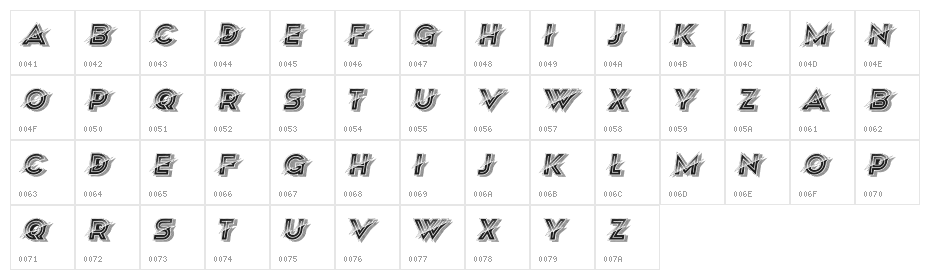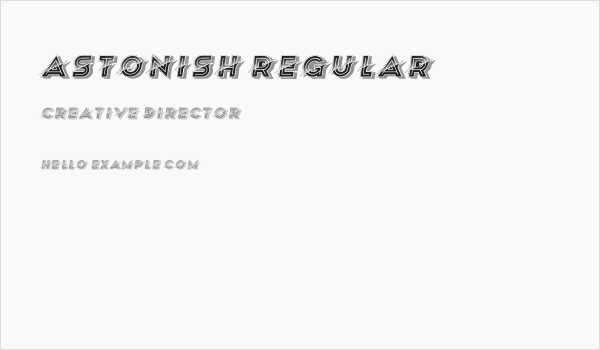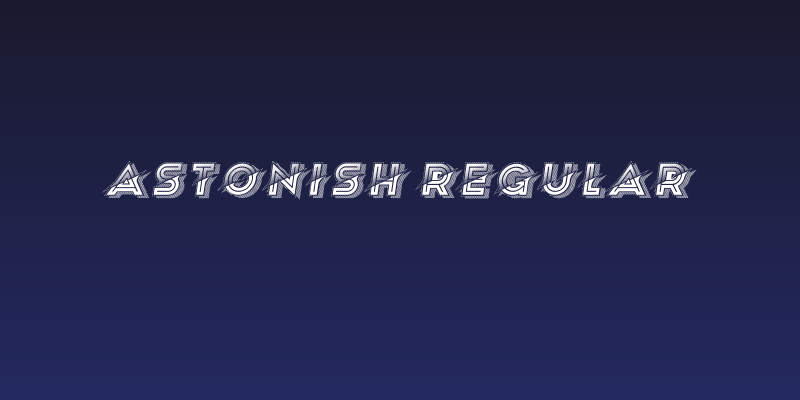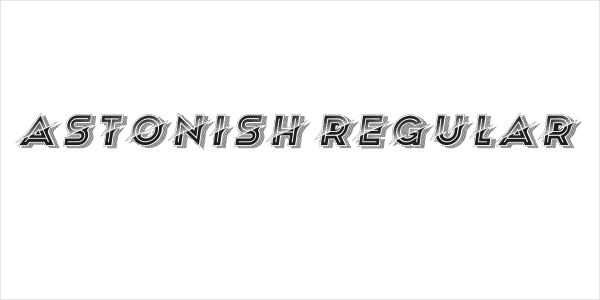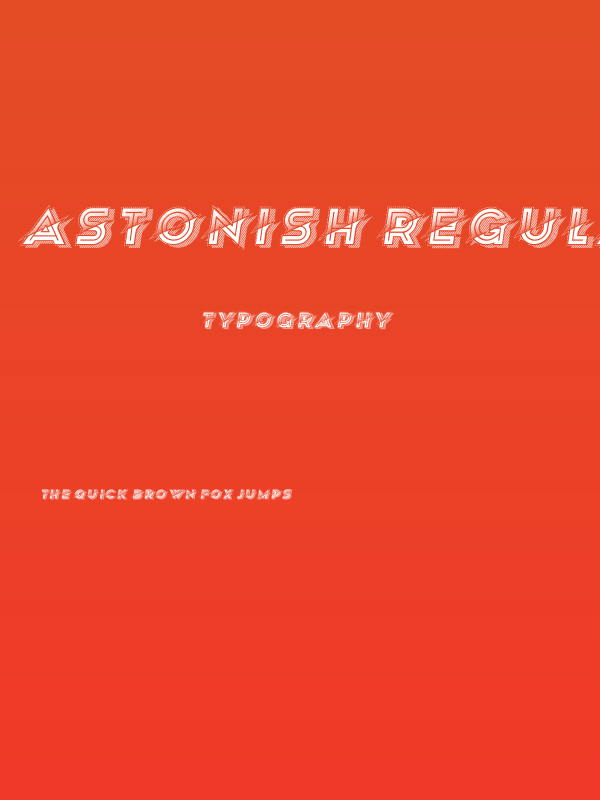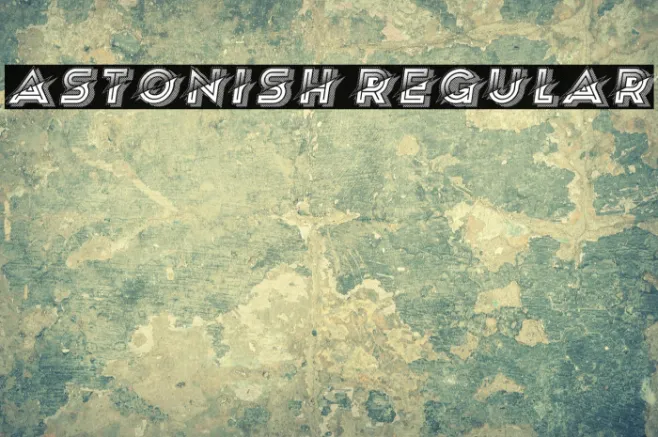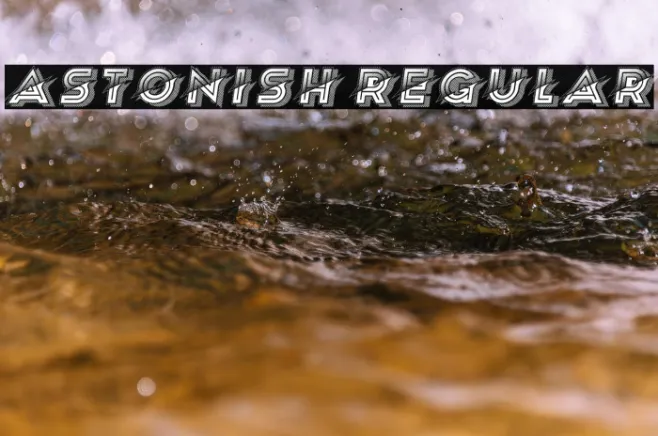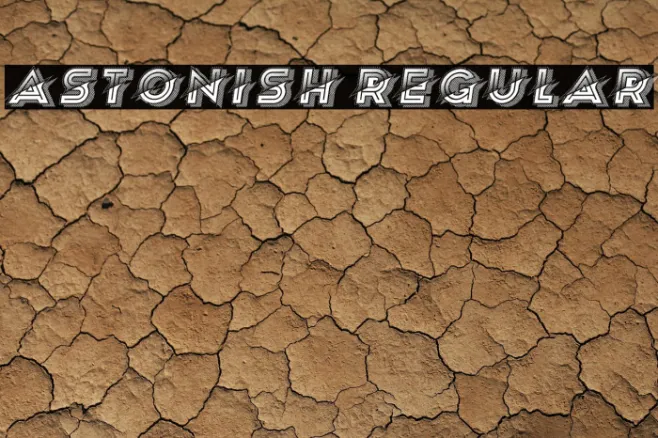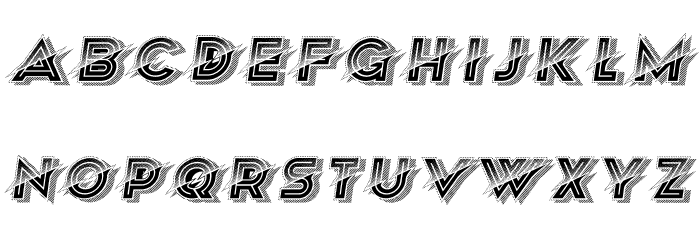
Astonish Regular Font
Astonish Regular Description
This font features a bold and dynamic design with a three-dimensional effect, achieved through the use of shadowing and layered outlines. The characters are uppercase, with a strong geometric influence that gives them a modern and edgy appearance. The font's unique style is characterized by its intricate detailing and the illusion of depth, making it stand out in any design context. The letters are evenly spaced, ensuring readability while maintaining a striking visual impact. This font is perfect for projects that require a bold statement and a contemporary feel.
| Proposed Projects | Ideal for branding, posters, headlines, and any design needing a bold, modern statement. |